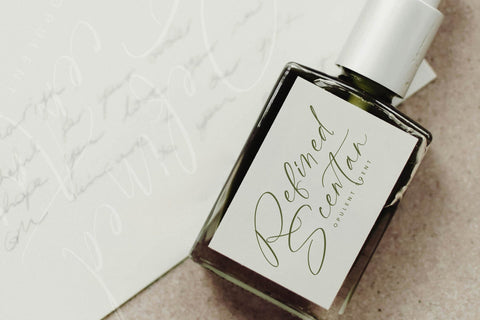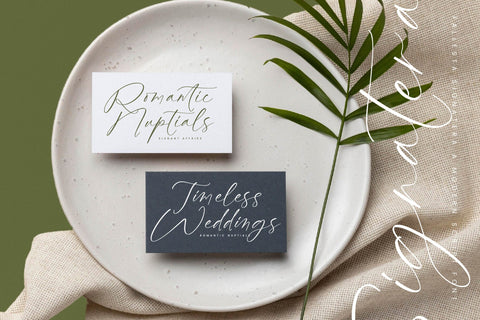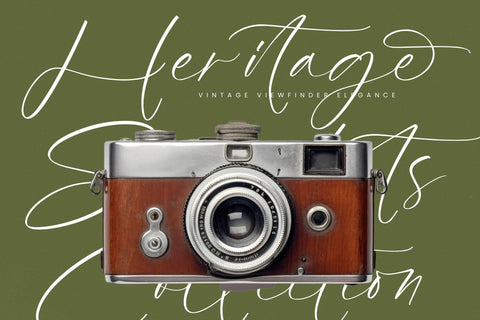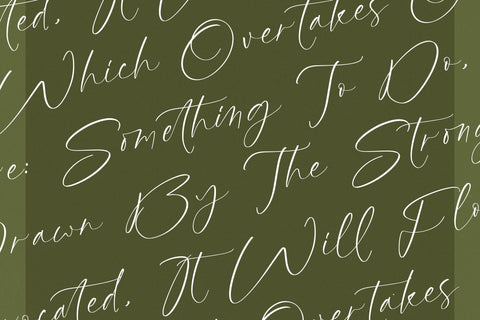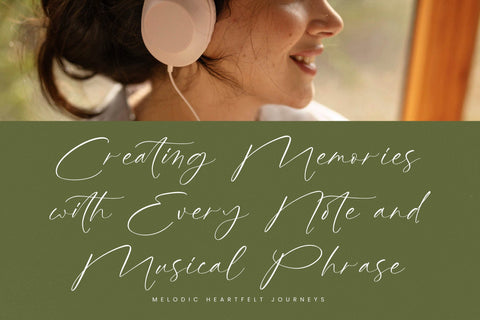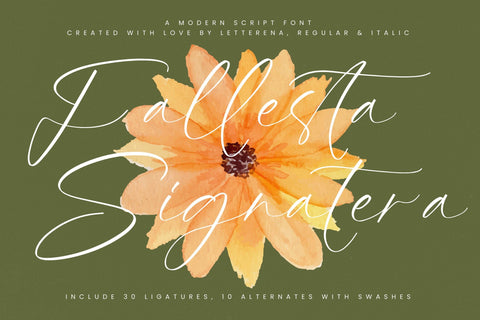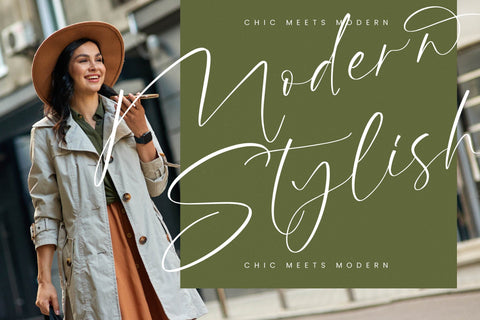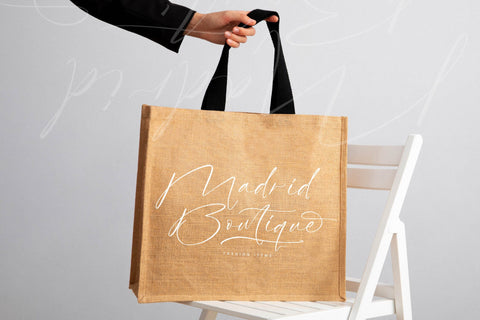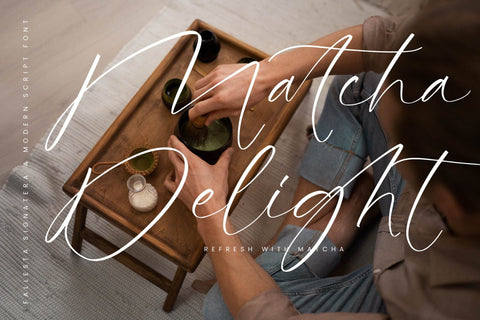
Fallesta Signatera - Modern Script Font
Fallesta Signatera - Modern Script Font , from Letterena, is a Luxury Script font, suitable for any projects such as: logos, branding projects, homeware designs, product packaging, mugs, quotes, posters, shopping bags, t-shirts, book covers, name card, invitation cards, greeting cards, label, photography, watermark, special events, and all your other luxury and beautiful projects that need a Luxury Script taste.